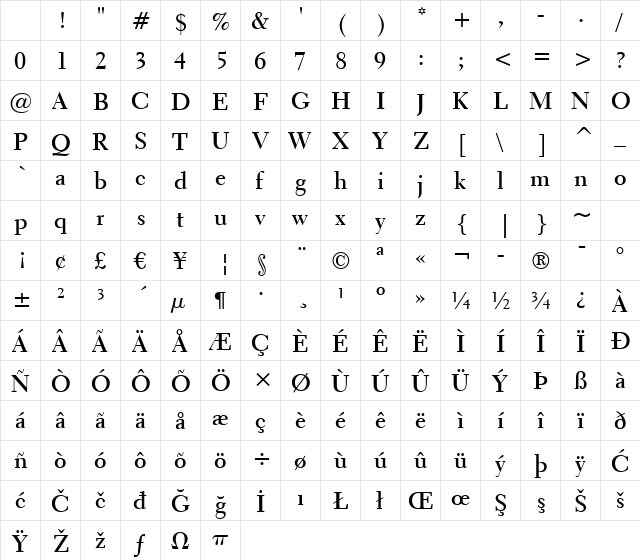
Complete Transit521 BT Bold glyph index. Displaying only characters natively supported by Transit521 BT Bold font.
Transit521 BT is a composed and adaptable typeface that performs quietly and consistently across a wide range of design contexts. Its bold stroke weight gives it real presence on the page.